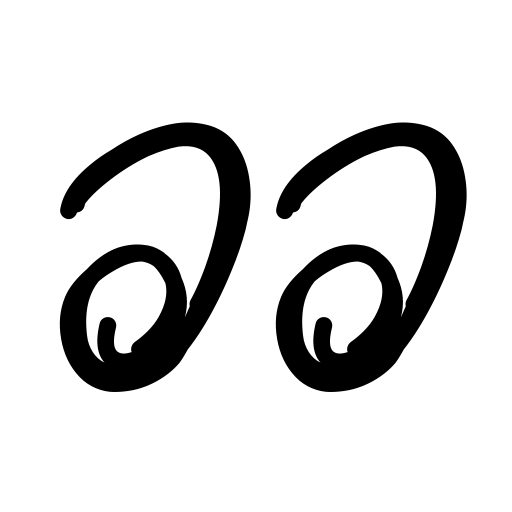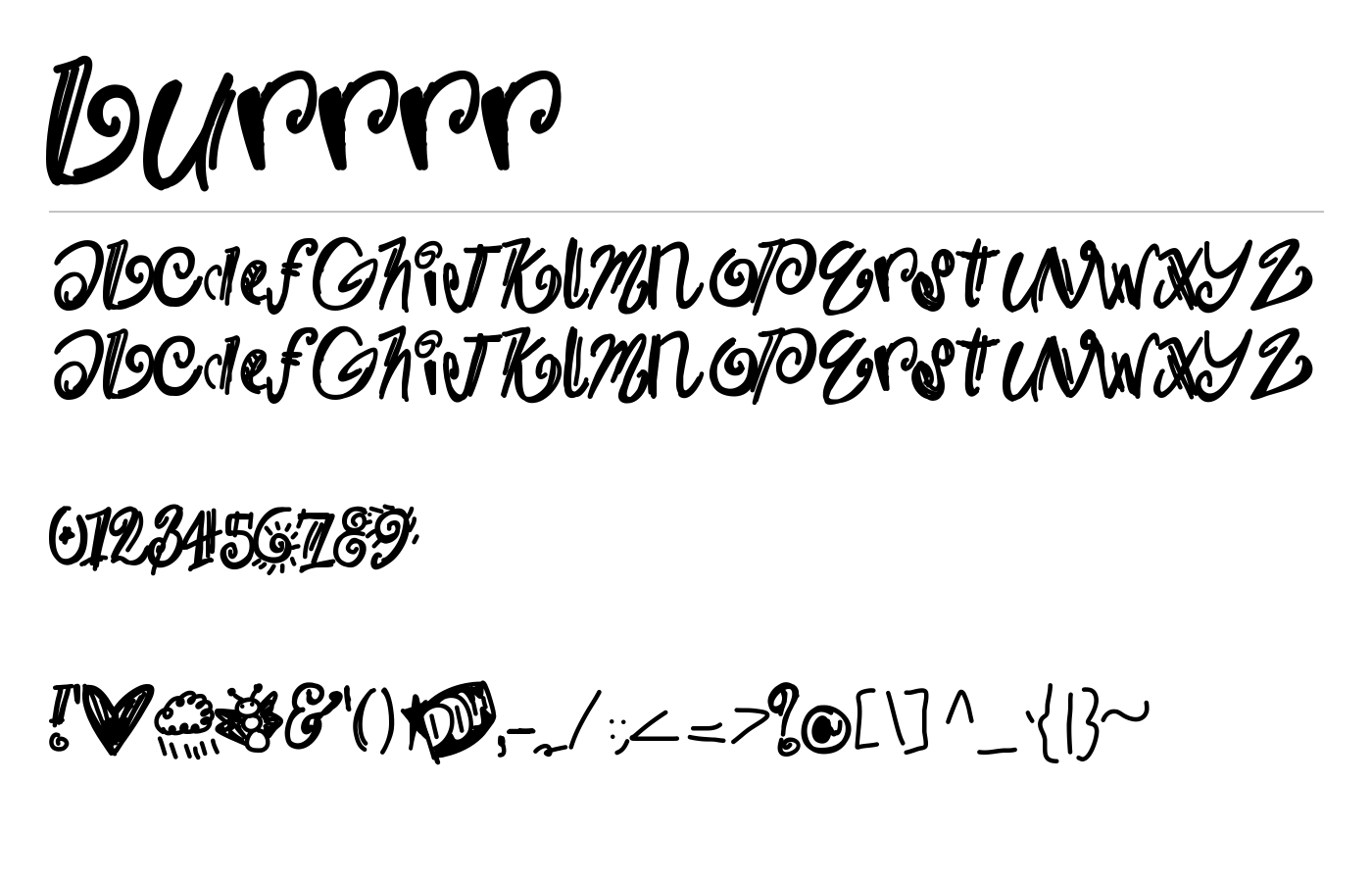
Burrrr Font is a playful and quirky handwritten typeface with bold, irregular strokes and creative swirls that give it a lively, informal character. Its uneven shapes and decorative details make it perfect for fun, casual designs like posters, kids' products, or artistic branding where a whimsical and energetic mood is desired. This font works best in display settings where its unique personality can shine and add a distinctive charm.
Burrrr Font
About Burrrr Font